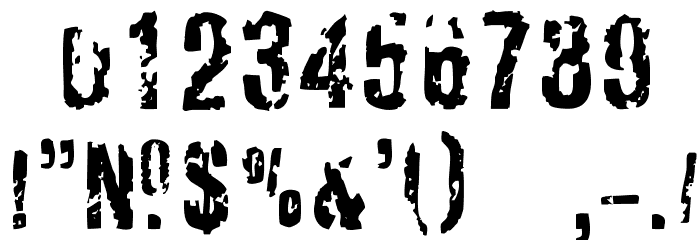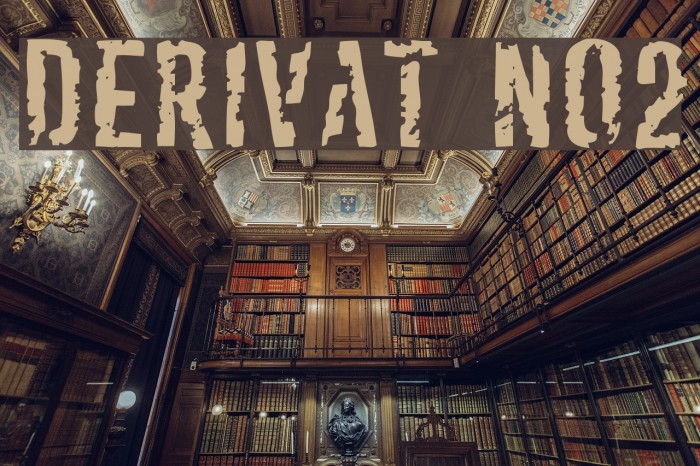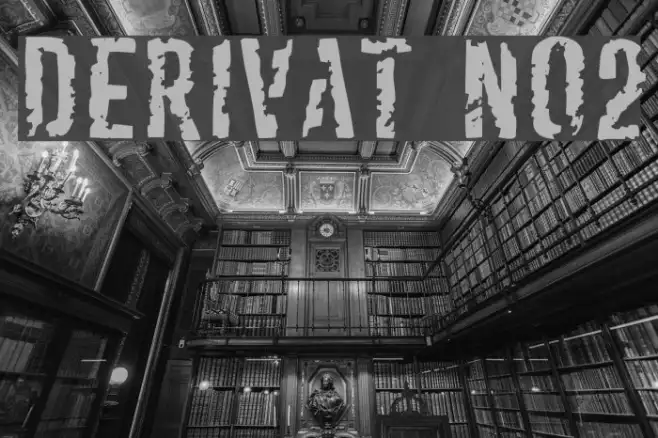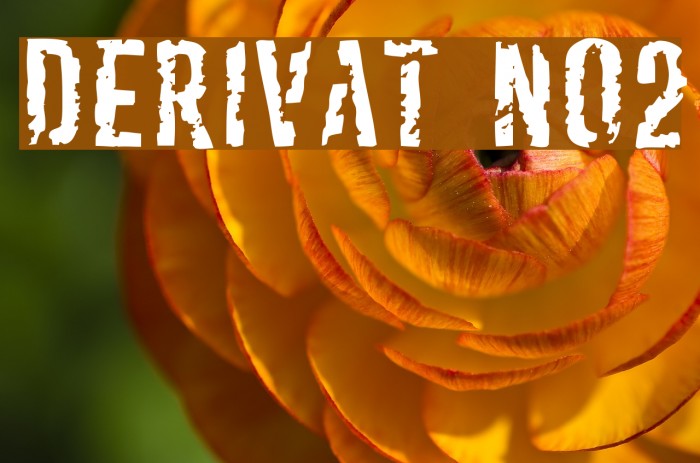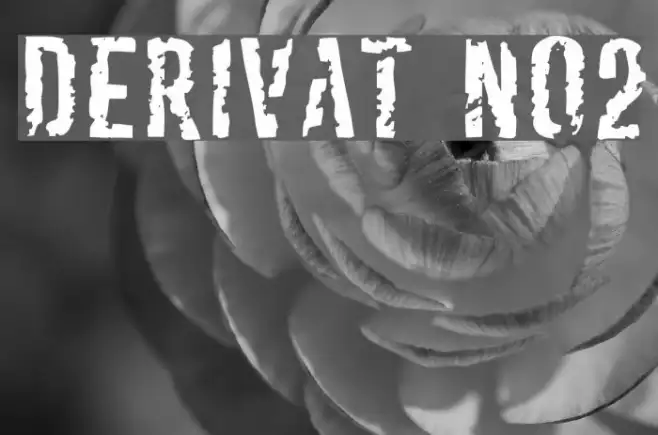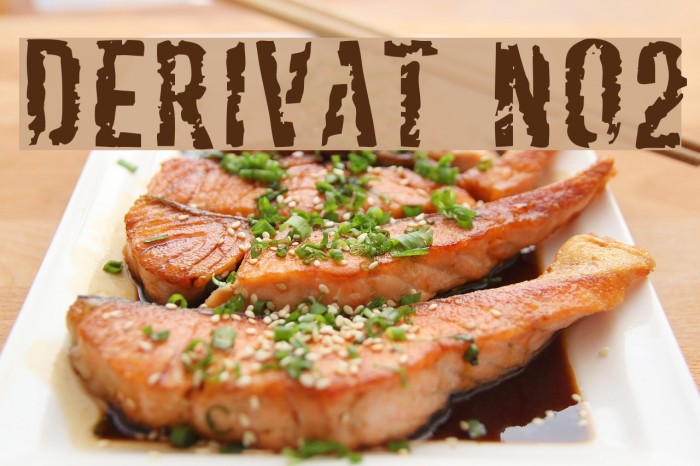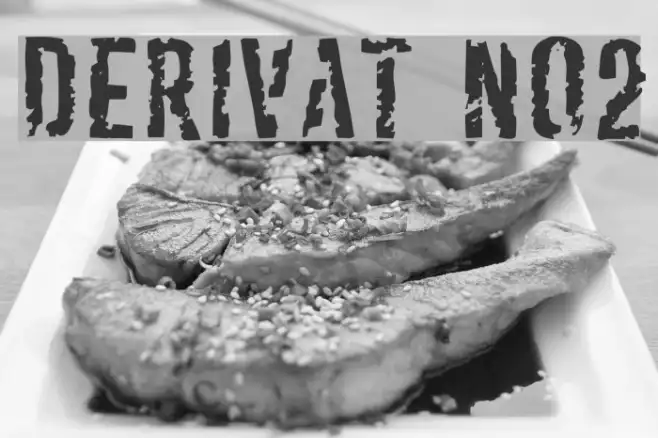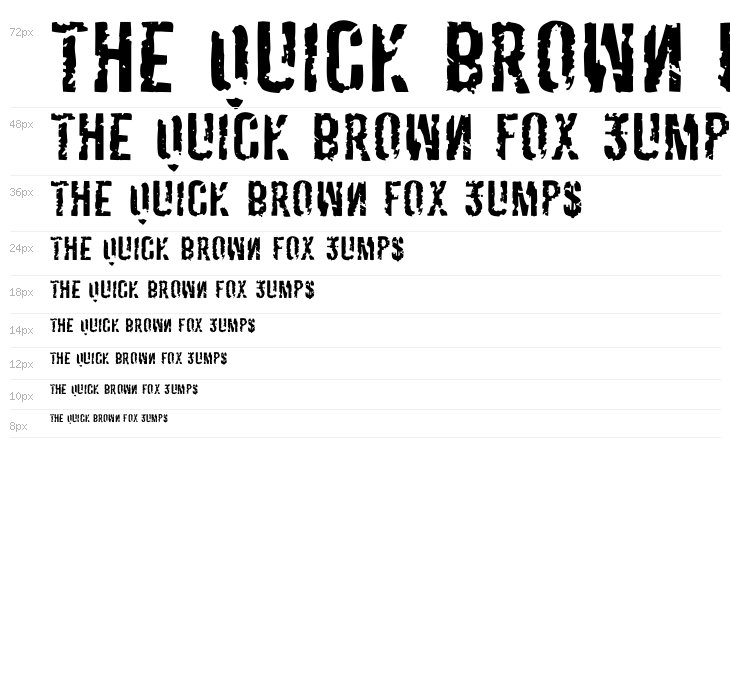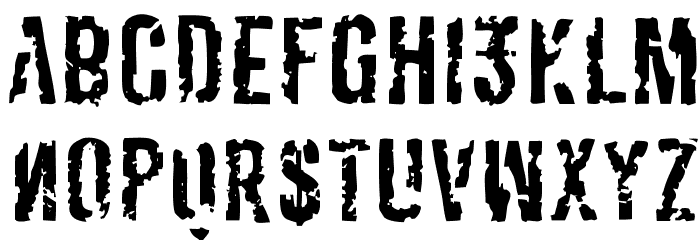
Derivat No2 Font
Derivat No2 Description
This font features a rugged, distressed appearance, with characters that appear weathered and eroded. The edges are irregular and rough, giving it a grunge or industrial feel. Each letter maintains a consistent height and width, but the distressed effect varies, adding uniqueness to each character. The font is bold and impactful, making it suitable for designs that require a strong, edgy aesthetic. It includes a full set of uppercase and lowercase letters, numbers, and a variety of special characters, all maintaining the same distressed style.
| Overall Style | Grunge, Industrial |
| Proposed Projects | Ideal for album covers, posters, urban-themed designs, and branding that requires a gritty, industrial look. |